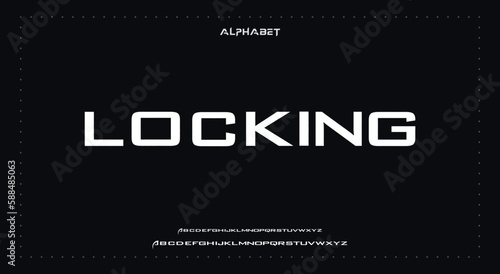
LOCKING Abstract Fashion Best font alphabet. Minimal modern urban fonts for logo, brand, fashion, Heading etc. Typography typeface uppercase lowercase and number. vector illustration full Premium look